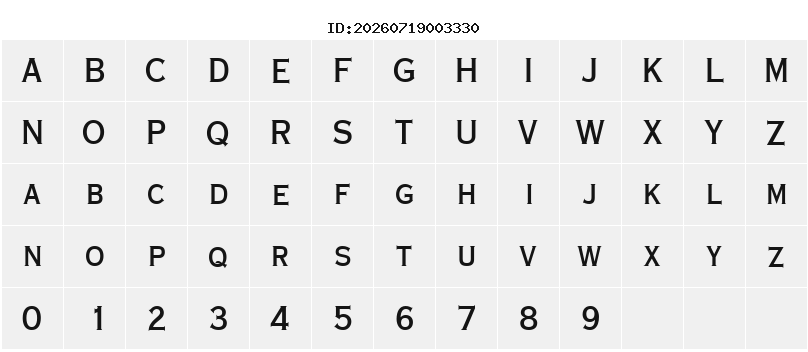
• Font Name: Copperplate Condensed SSi
• Font Style: Bold Condensed
Copperplate Condensed SSi.ttf is a modern, elegant sans-serif font designed for ultimate readability and visual harmony. Perfect for branding, headlines, web design, and print materials.